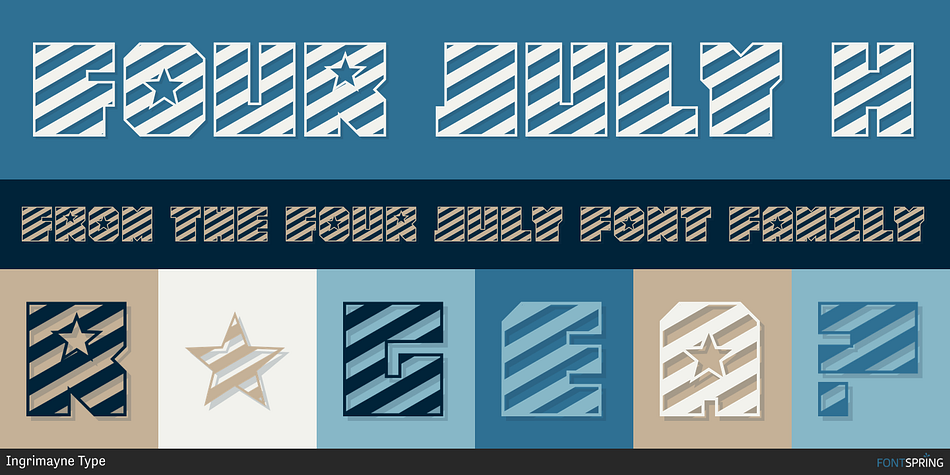
FOUR JULY H
Designed by Robert Schenk, Four July is a display font family. This typeface has three styles and was published by Ingrimayne Type.
FourJuly contains three patriotic fonts that might be fun to use in July. They are also very hard to read, but perhaps not as hard as the somewhat similar letters in the fonts of FlagDay.
FourJuly A has square, blocky letters with star interiors.
FourJuly G and FourJuly H add diagonal stripes.
FourJuly G and FourJuly H can be layered on top of FourJuly A to create bicolored letters.
Style H